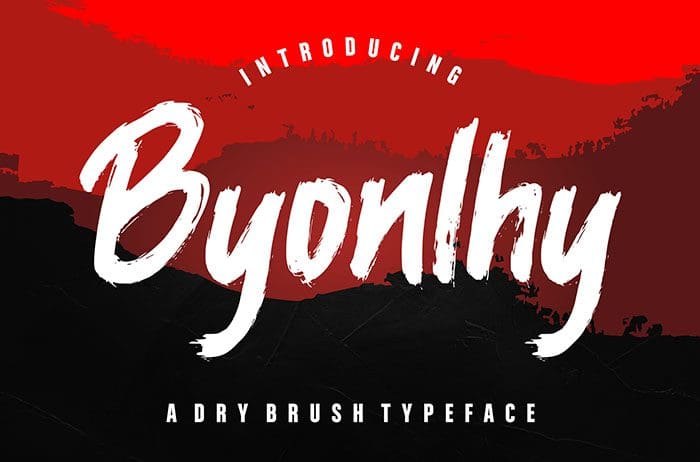
Byonlhy Brush Font
Byonlhy is dry Brush Font looks bold and will make your latest project looks amazing. Byonlhy is perfect for branding projects, logo, product designs, label, photography, watermark, stationery and more. Thanks to Creatype Studio for sharing this font! Take a look at this portfolio for more of his stunning fonts.